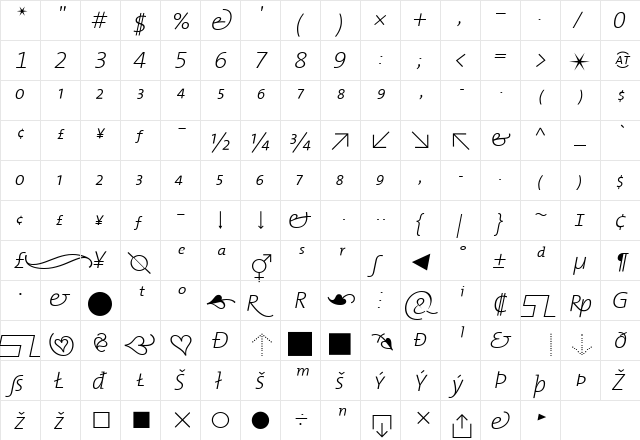
TheMixExtraLight Roman
Design Context for TheMixExtraLight Typeface
TheMixExtraLight is a composed and adaptable typeface that performs quietly and consistently across a wide range of design contexts. The delicate stroke weight brings airiness and refinement to layouts.
Pro Tip: Pair TheMixExtraLight with a font of contrasting weight or personality to build a more expressive typographic hierarchy.